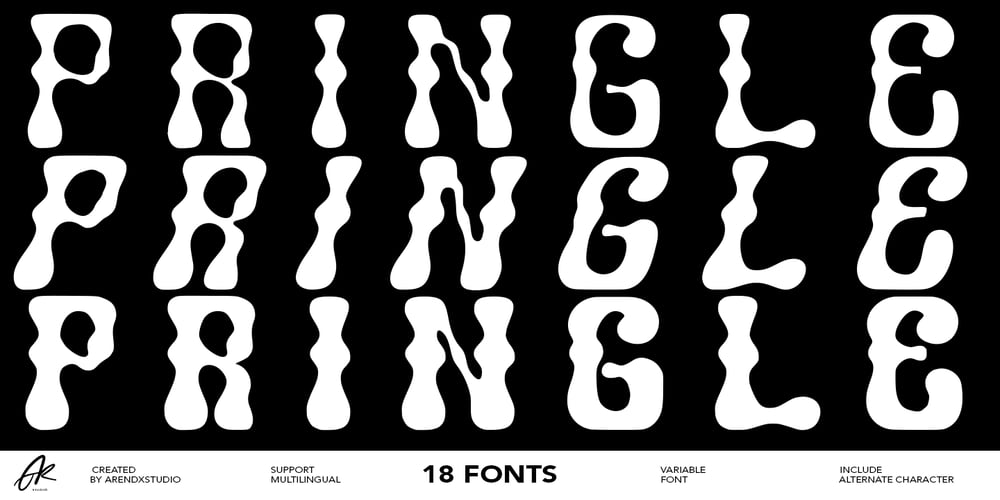
Pringle Font Family was designed by Asep Rendi and published by Arendxstudio. Pringle contains 18 styles and family package options. Pringle – Display Variable Font is a versatile, bold and unique font. Combination between high contrast and Brutalism style, Pringle has a unique style with stylistic, alternates,and supports multilingual languages.Features : • Character Set A-Z • Numerals & Punctuations (OpenType Standard) • Accents (Multilingual characters) Weights: Thin / Light / Regular / Medium / Semi Bold / Bold. OTF and Variable Font (TTF)